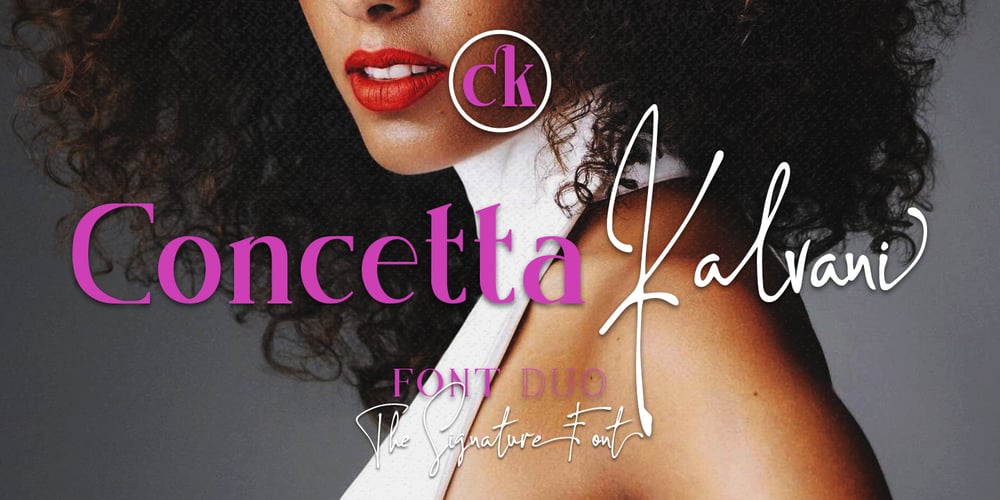
Concetta Kalvani Font Family was designed by Suandana ipandemade and published by madeDeduk. Concetta Kalvani contains 4 styles and family package options. Concetta Kalvani is classic signature font and serif font with two variation regular and outline style. Concetta Kalvani perfect for poster design, book covers, merchandise, fashion campaigns, newsletters, branding, advertising, magazines, greeting cards, album covers, and quote designs and more. If you need anything else please contact dedukvic@gmail.com Thank You Very Much